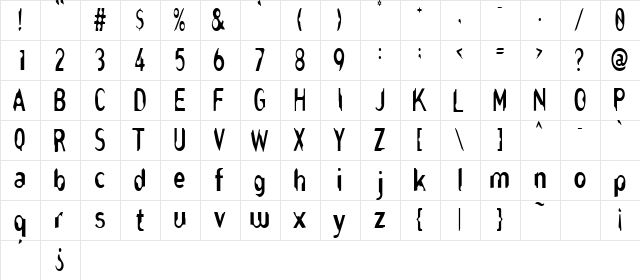
NibblesCondensed Regular Font Preview
NibblesCondensed Regular
NibblesCondensed Regular Font Details
Design Context for NibblesCondensed Typeface
NibblesCondensed is a composed and adaptable typeface that performs quietly and consistently across a wide range of design contexts. Its narrow stance lets it pack a punch even in space-constrained designs.